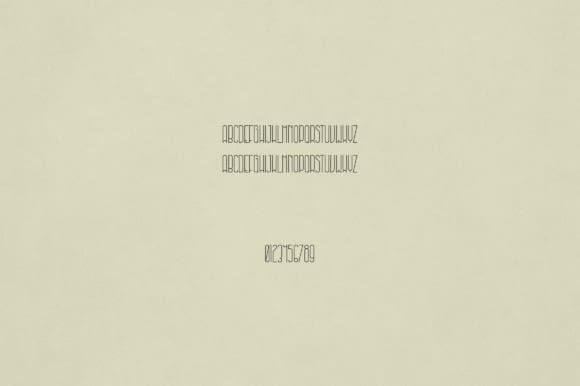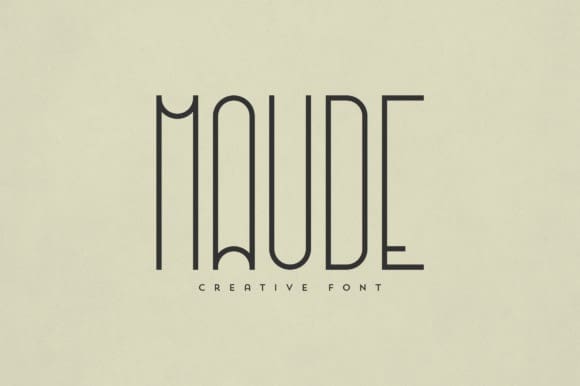
Maude Font
Maude Font is an elegant and versatile display font that will make your typography truly unique! It will enchant every logo, branding, headline, or plain text!